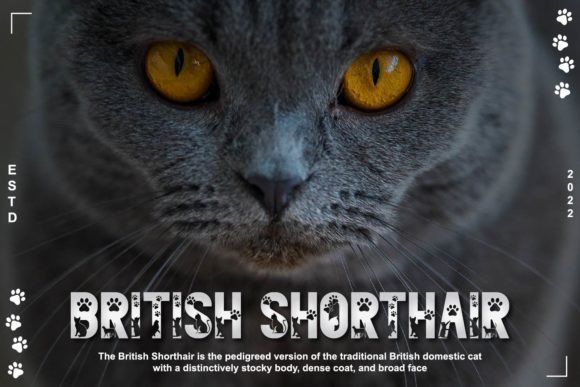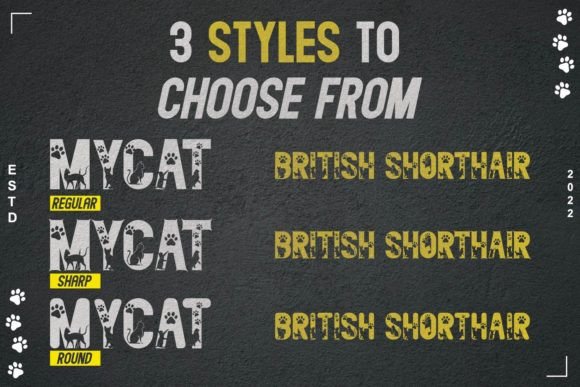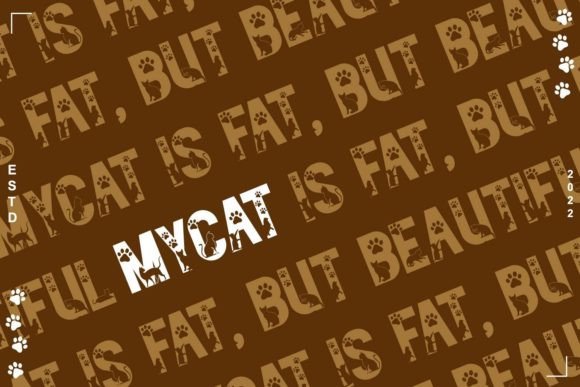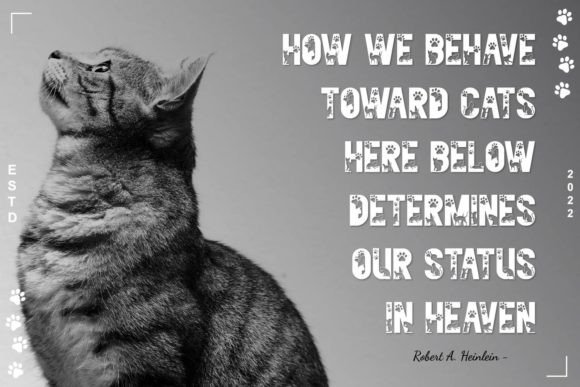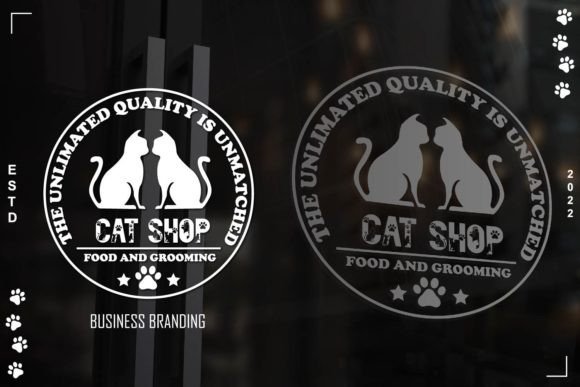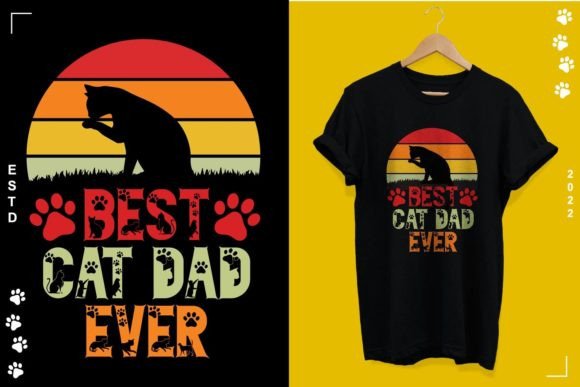
Introduction to Mycat Font
As a designer, have you ever stumbled upon that perfect font that brings a smile to your face and sets the tone for your project? For me, it was the moment I discovered the Mycat Font – a delightful, cat-themed font that’s as adorable as it is functional. The instant I laid eyes on its playful characters, I knew I had to share it with fellow creatives.
The Mycat Font is more than just a cute design element; it’s a valuable resource for designers seeking to add a touch of whimsy and authenticity to their projects. With its transparent background and high-quality design, it’s perfect for crafting a wide range of creative projects, from children’s activities and crafts to t-shirt designs and beyond. Whether you’re looking for a free download or a design resource to elevate your next project, the Mycat Font is sure to bring a joyful touch to your work.
Key Features of Mycat Font
- Consists of 6 unique characters, offering versatility for various design needs
- Perfect for digital designs, logos, and branding materials
Honest Review: Mycat Font
As a designer, I’m always on the lookout for high-quality design resources to elevate my creative projects. Recently, I stumbled upon the Mycat Font, and I’m excited to share my honest review.
- High-quality design: Mycat Font boasts beautiful, intricate designs that are perfect for various creative projects.
- Transparent background: The font comes with a transparent background, allowing for seamless integration into your designs.
The Mycat Font is incredibly versatile and can be used for a wide range of applications, from branding and marketing materials to digital products and print media.
- Limited character set: While the font is beautiful, it has a limited character set, which may not be suitable for longer texts or documents.
- Not ideal for body text: Due to its intricate design, the font may not be the best choice for body text, as it can be difficult to read in smaller sizes.
Overall, I’m impressed with the Mycat Font’s quality and versatility. It’s an excellent addition to any designer’s toolkit, and I highly recommend it for creative projects that require a touch of elegance and sophistication.
How to Use Mycat Font
Mycat Font is a high-quality design resource perfect for creative projects. It features a transparent background, making it ideal for use in various applications.
Use Mycat Font in PowerPoint presentations and Word documents to add a touch of elegance and sophistication.
Tips for Getting the Most Out of Mycat Font
Experiment with different font sizes, colors, and styles to get the most out of Mycat Font. This will help you create unique and eye-catching designs.
Mycat Font is perfect for creating logos, icons, and other graphics. It’s also ideal for use in presentations, documents, and other creative projects.
Alternatives to Mycat Font
The Montserrat Font is a popular sans-serif typeface designed for urban environments. It is available for free download and features a strong and modern design, making it ideal for creative projects that require a bold and eye-catching font. Use Montserrat when you need a font with a high level of contrast and a strong personality. It compares to Mycat Font in terms of its modern design, but has a more rugged and industrial feel.